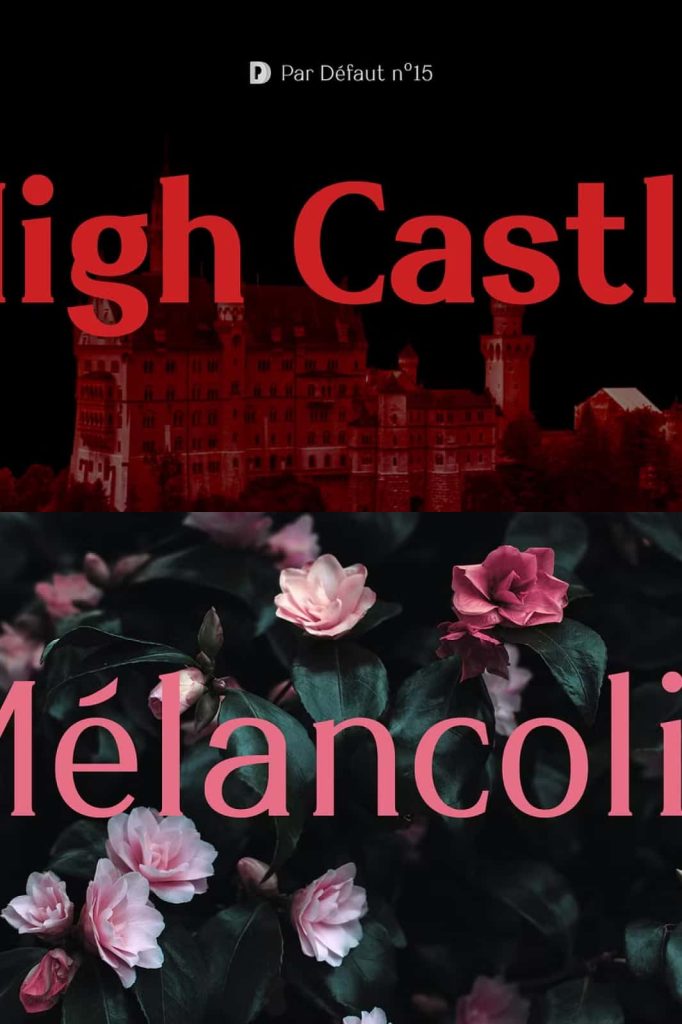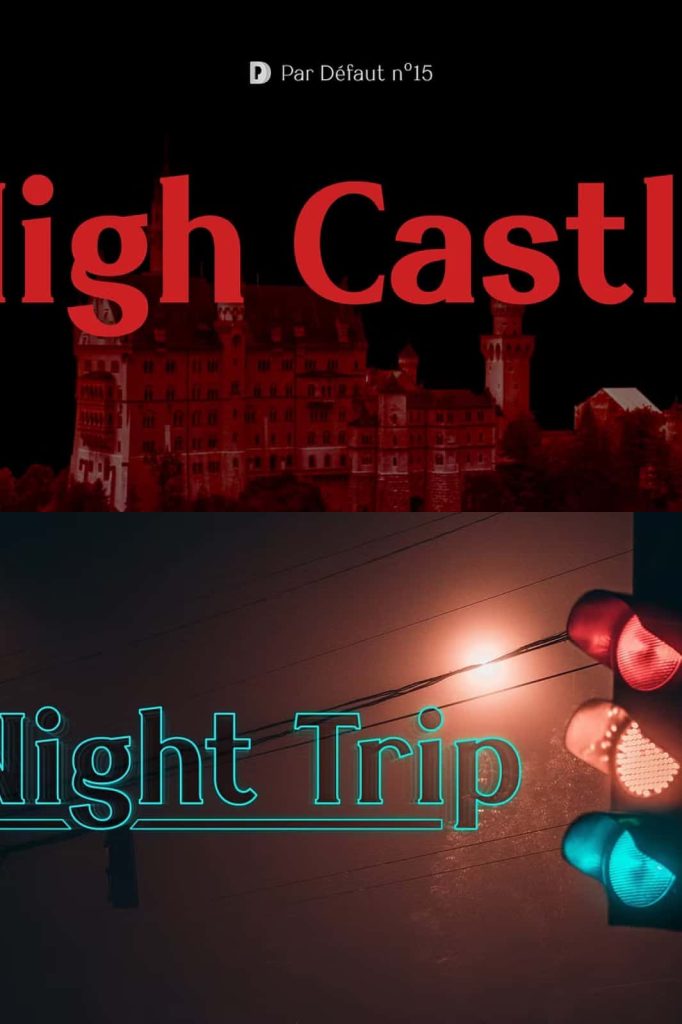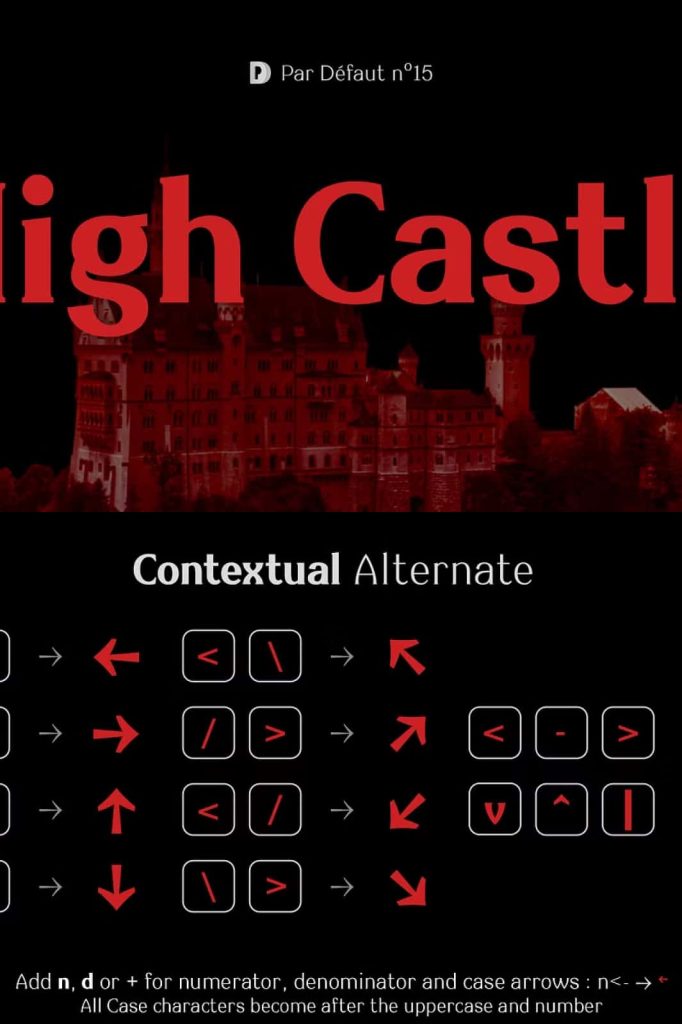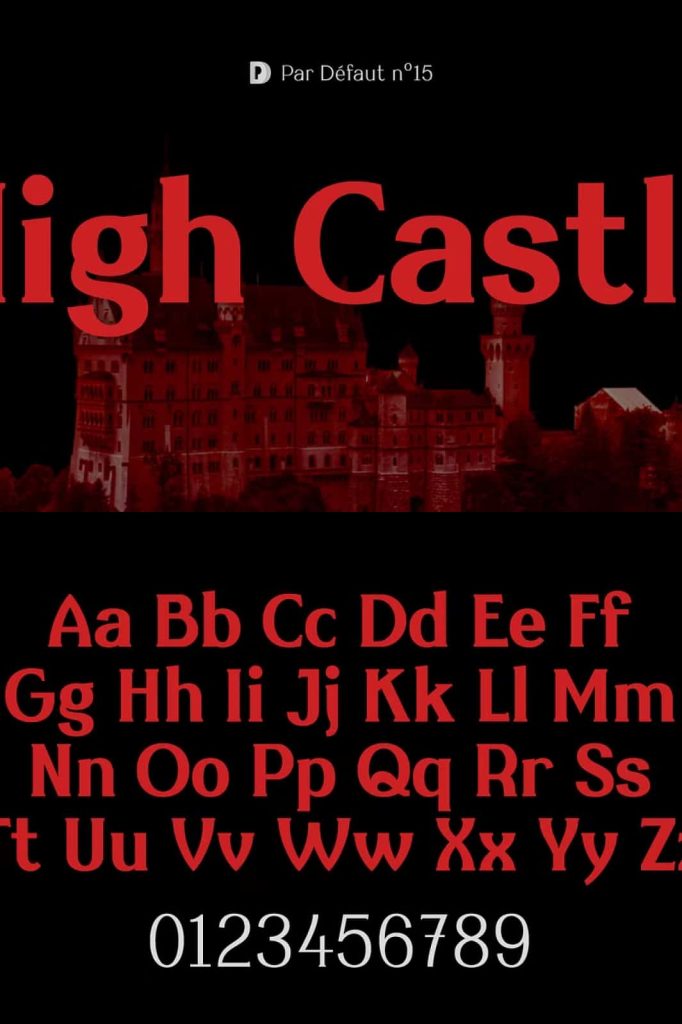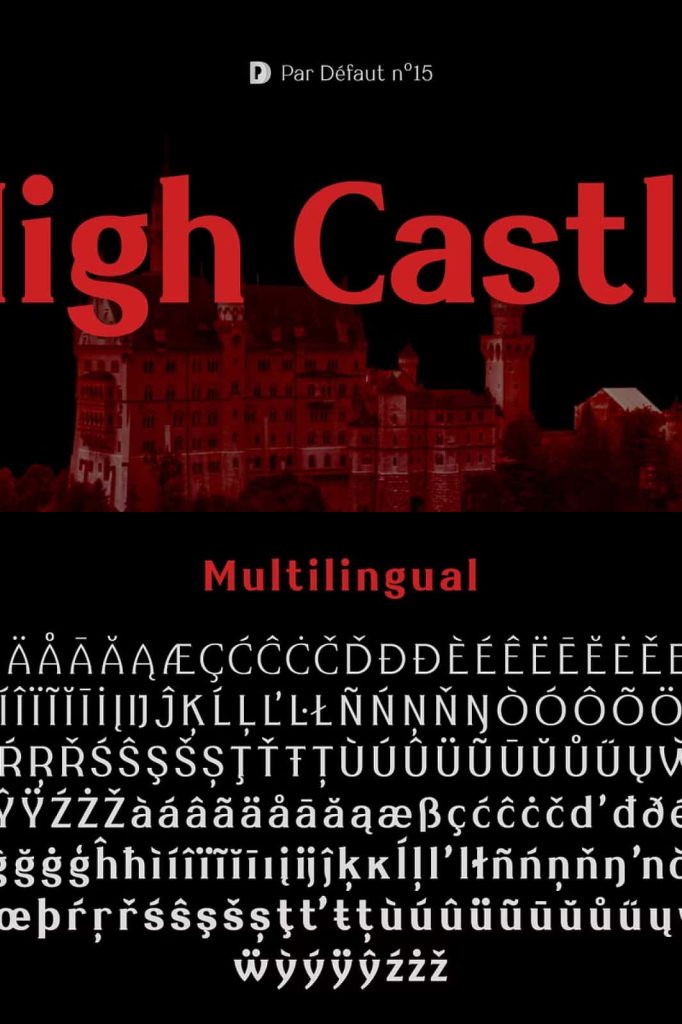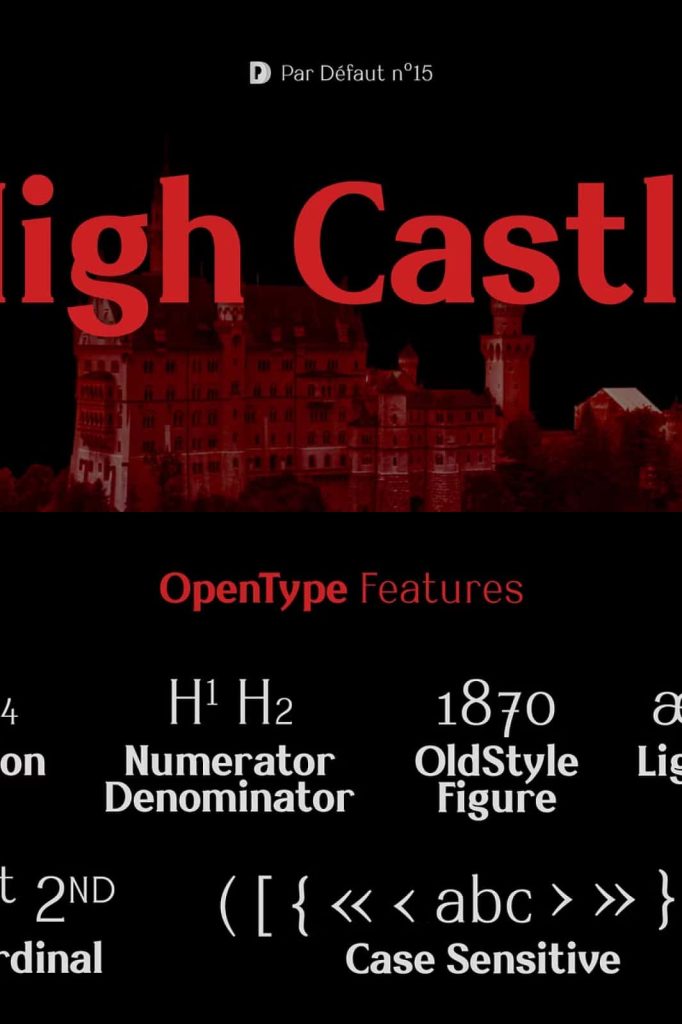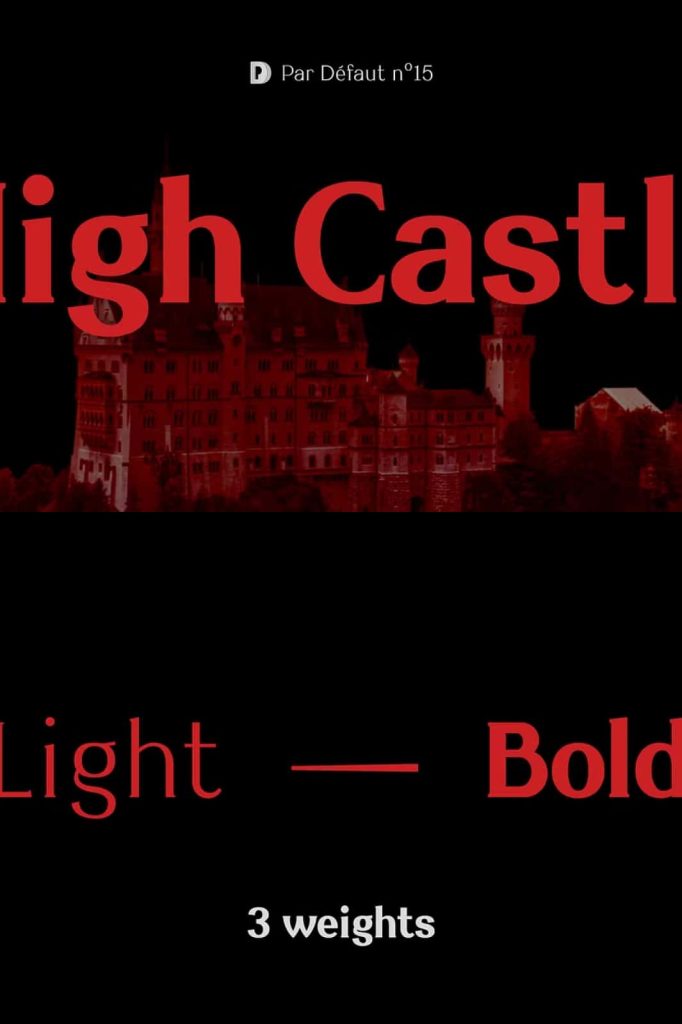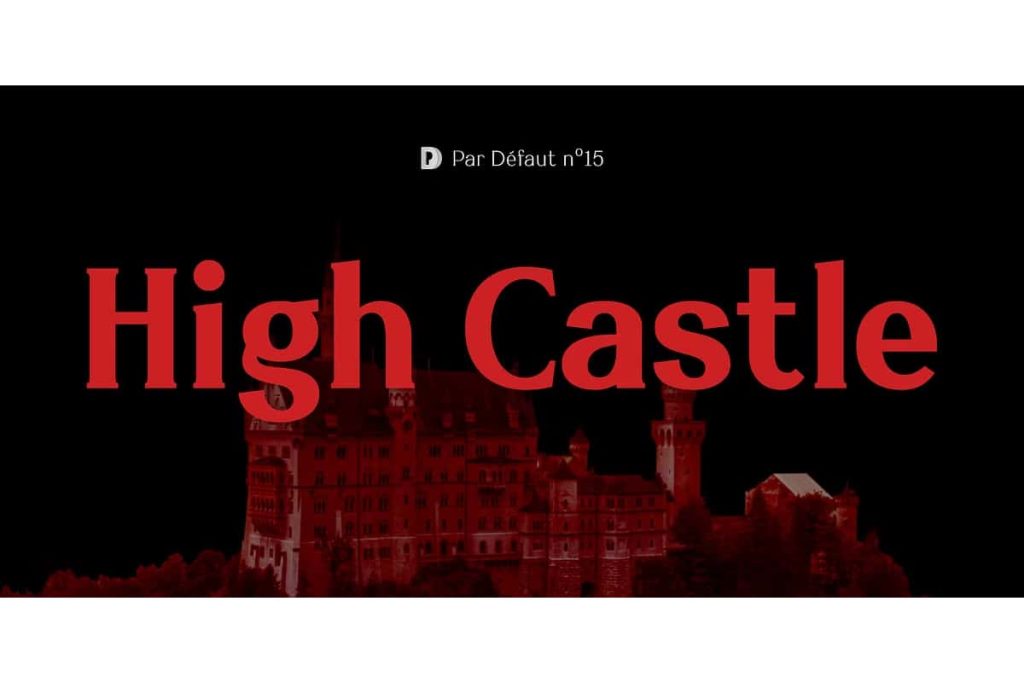
High Castle
High Castle is a serif font family that draws inspiration from baroque art and architecture. Its bold strokes and intricate details evoke a sense of history and grandeur.